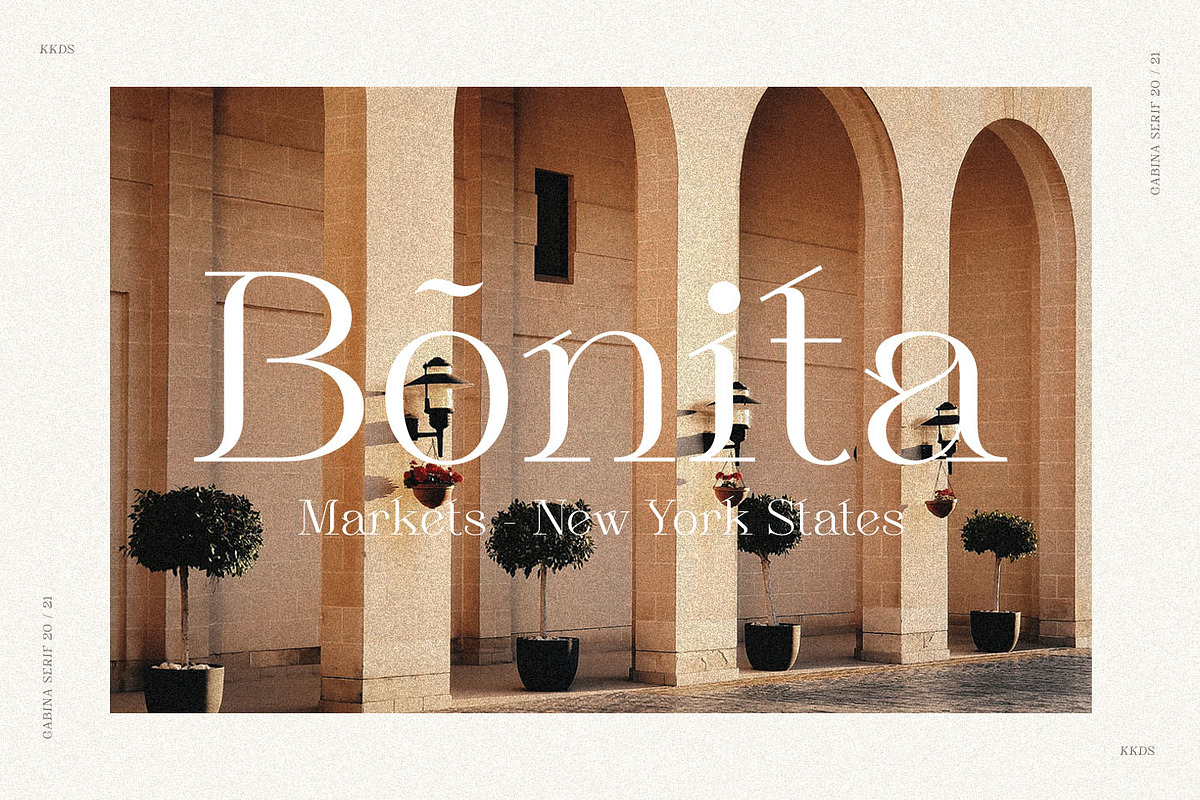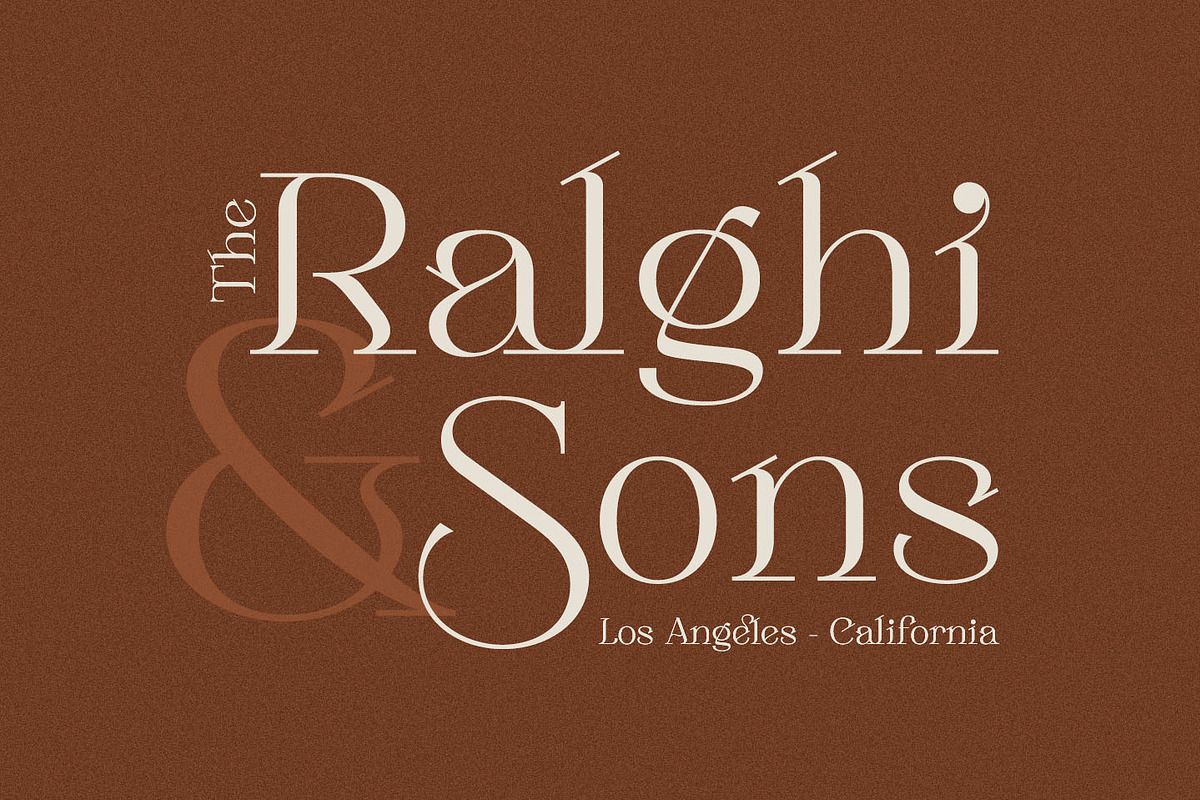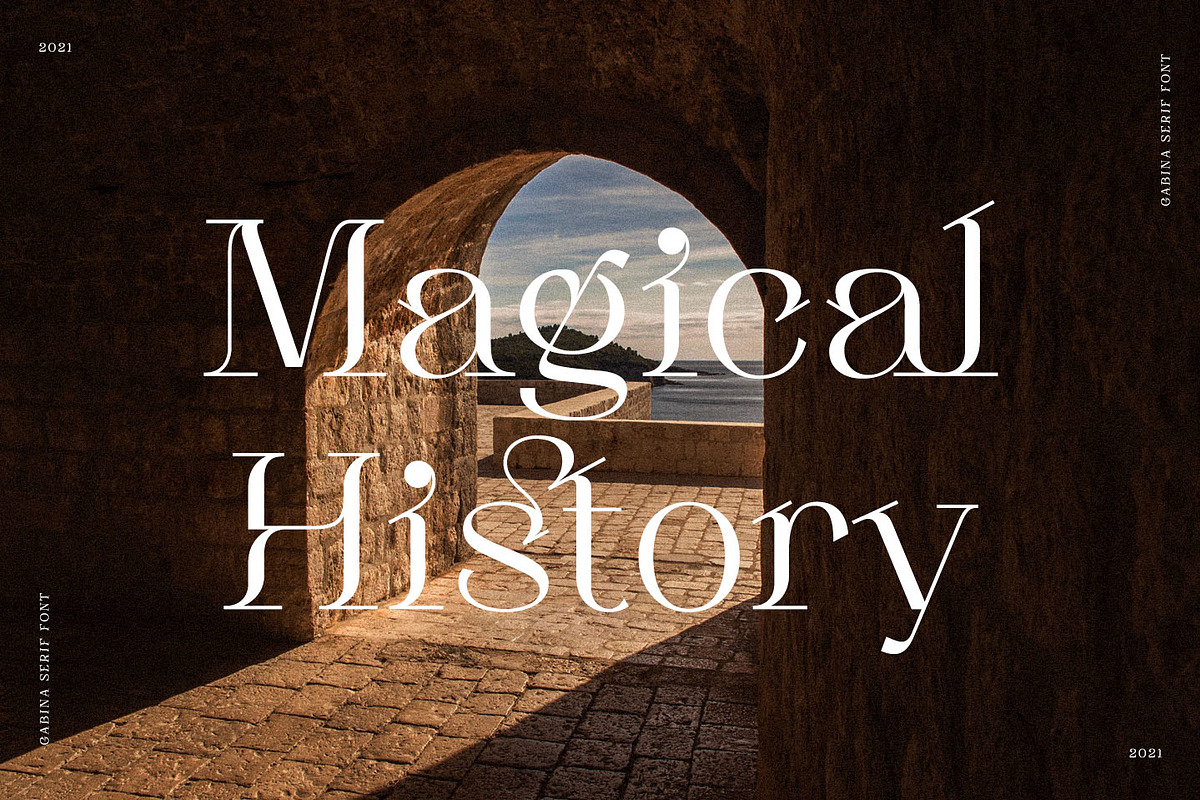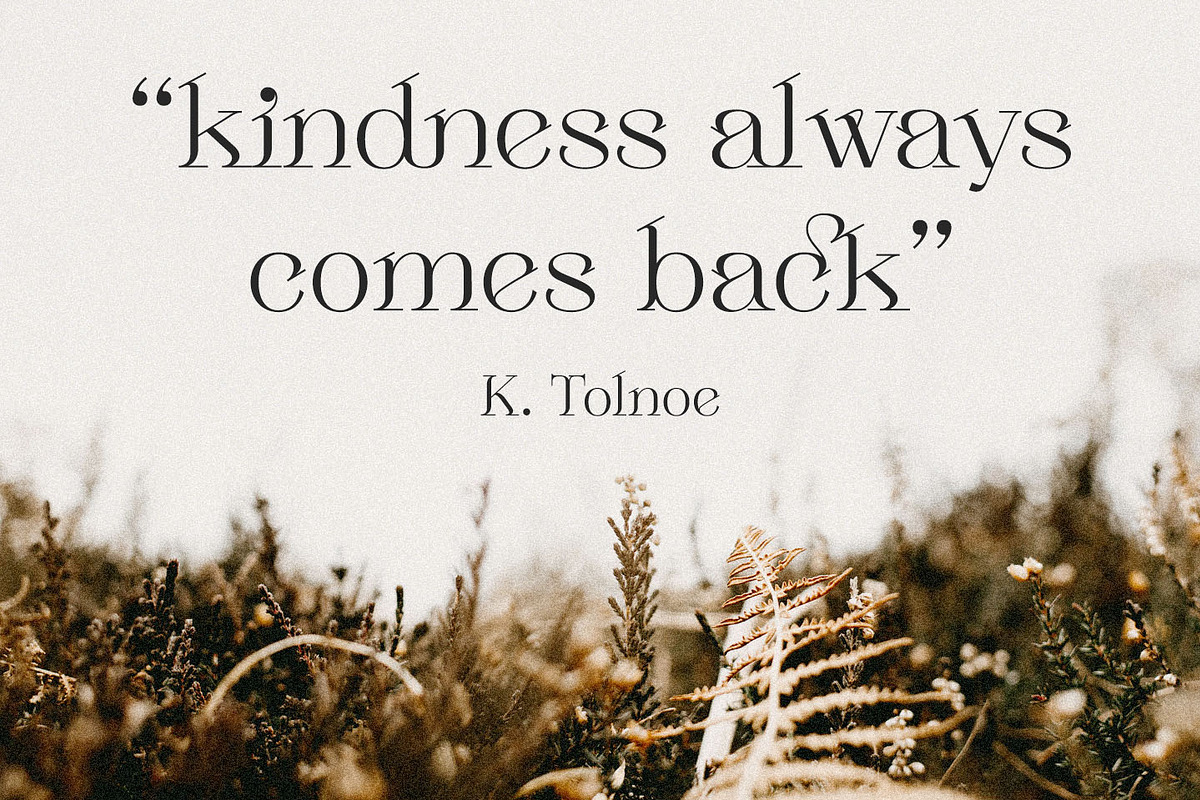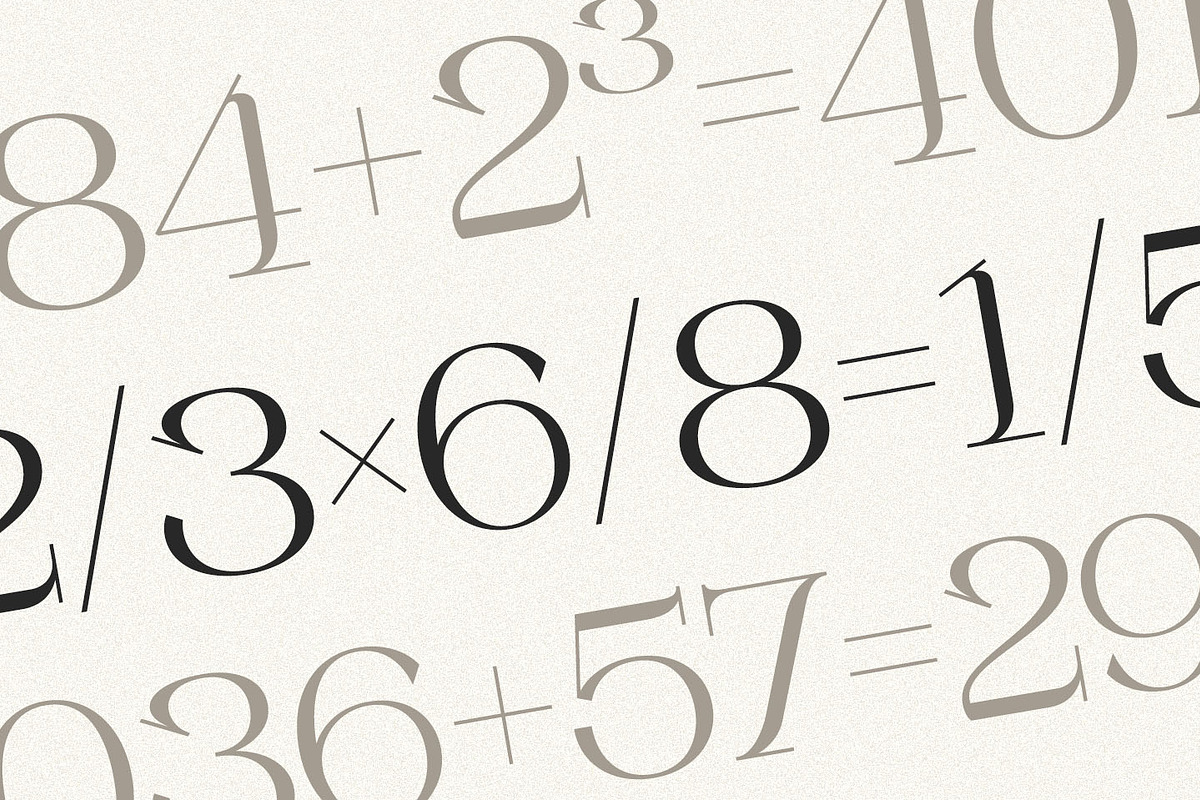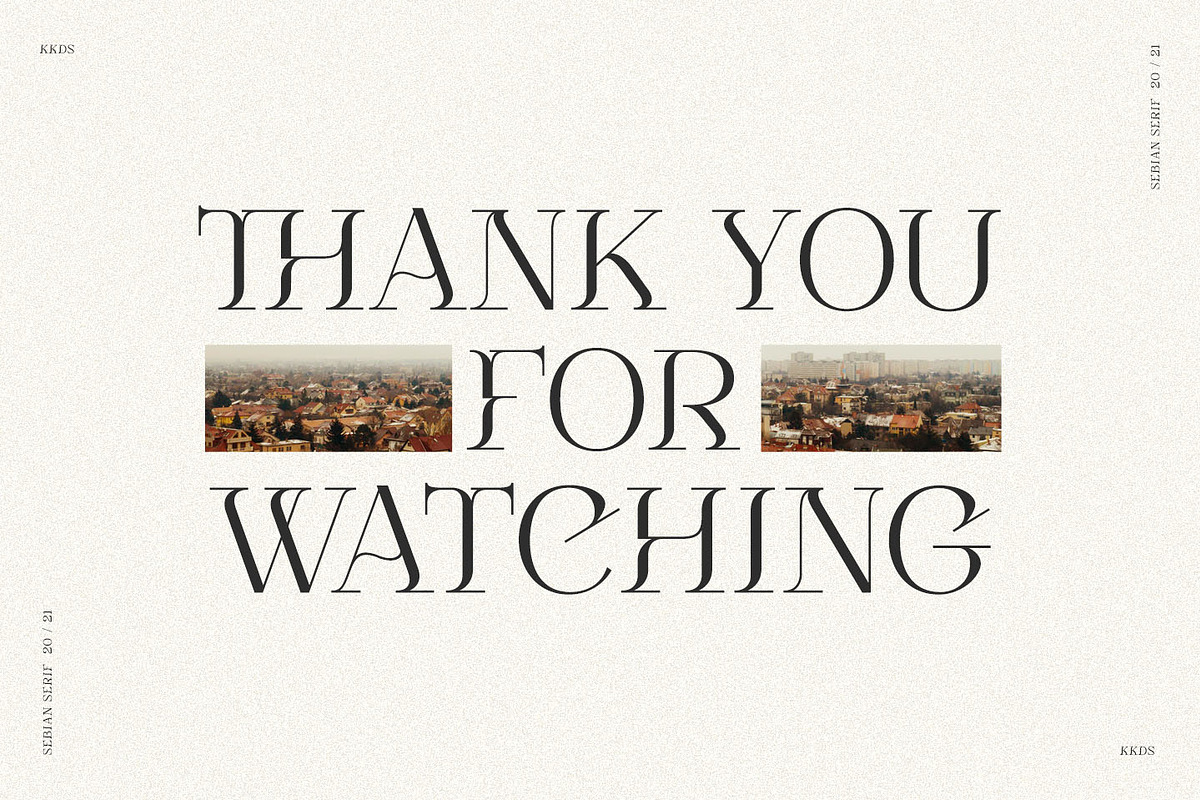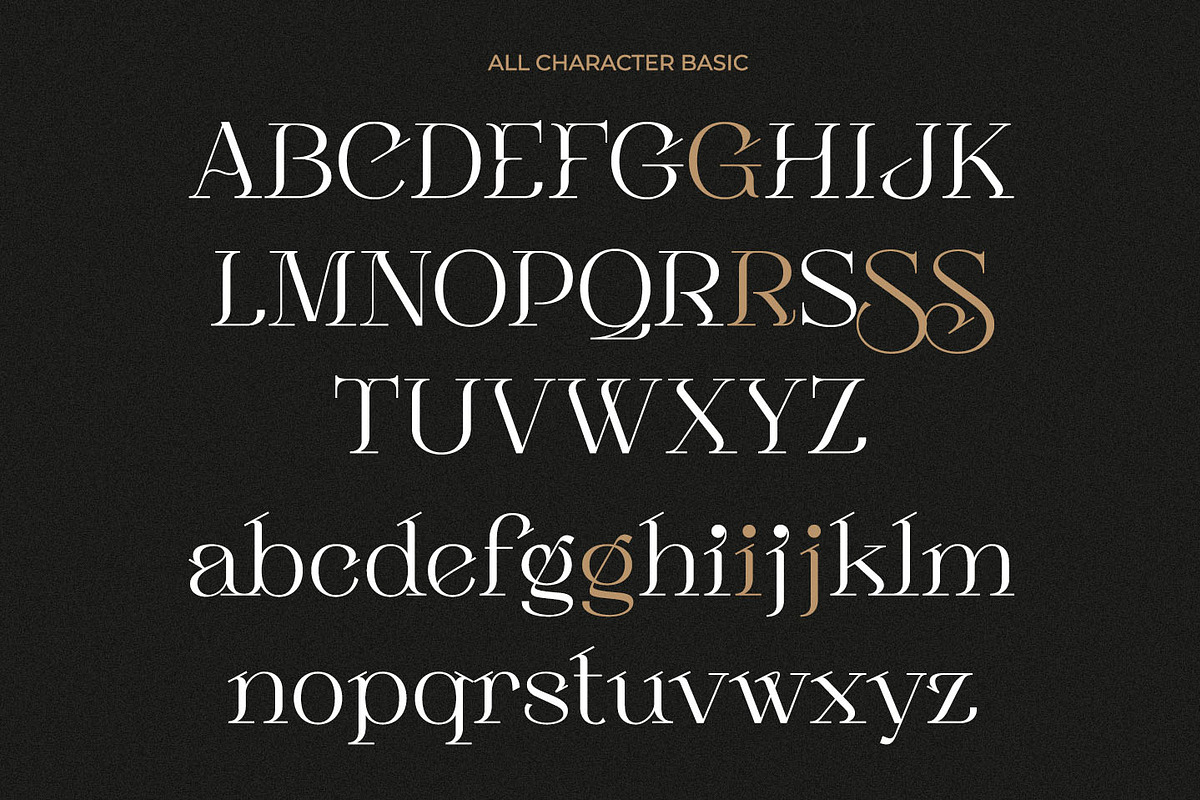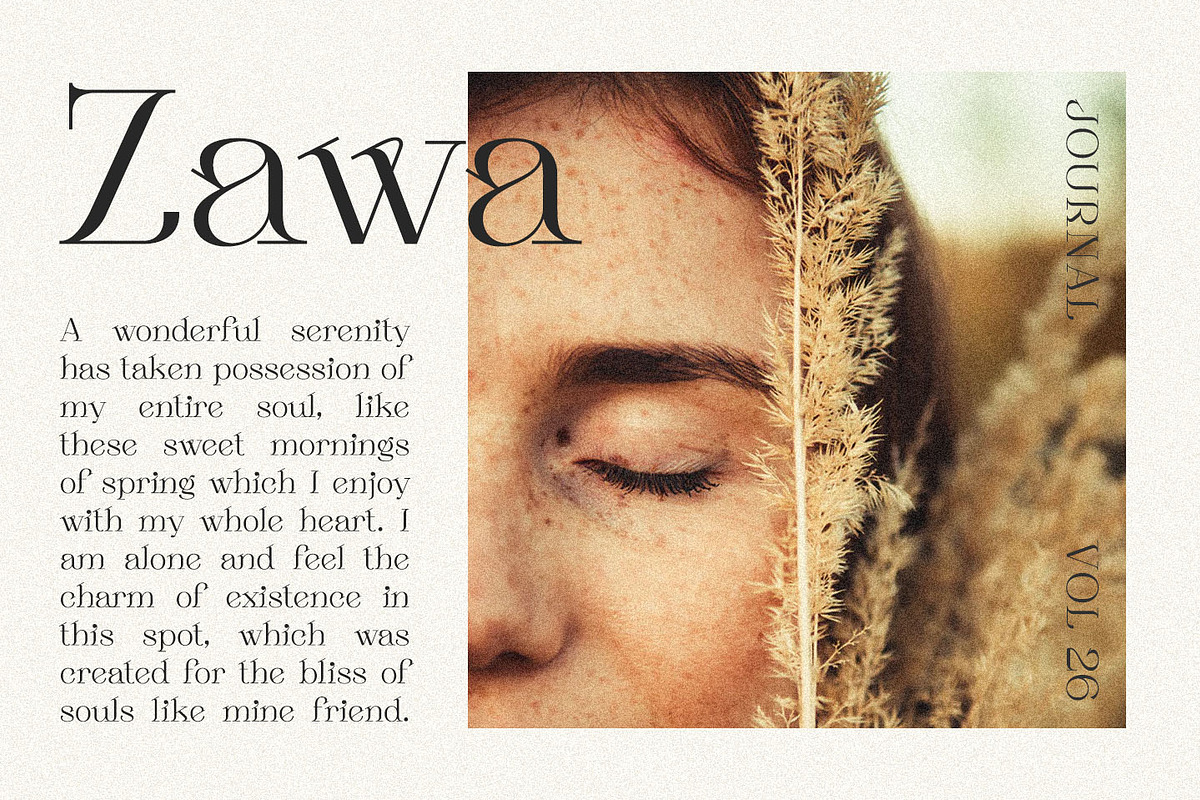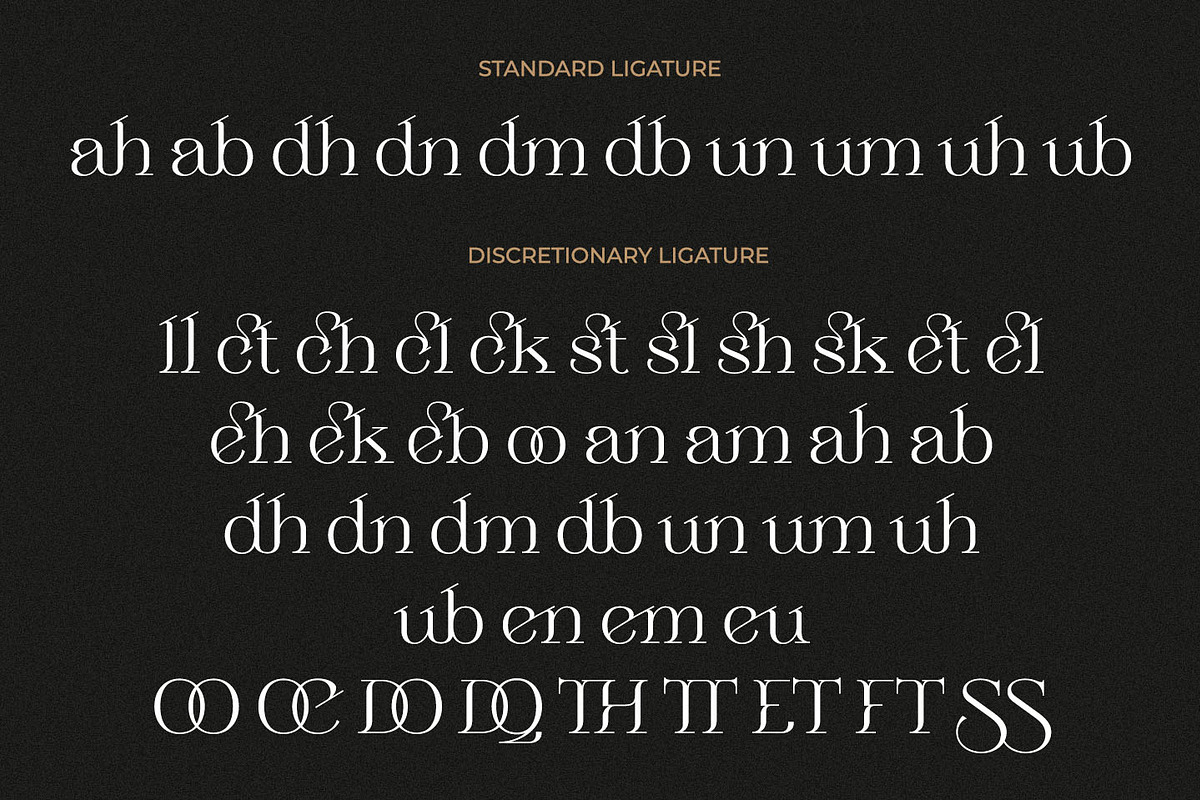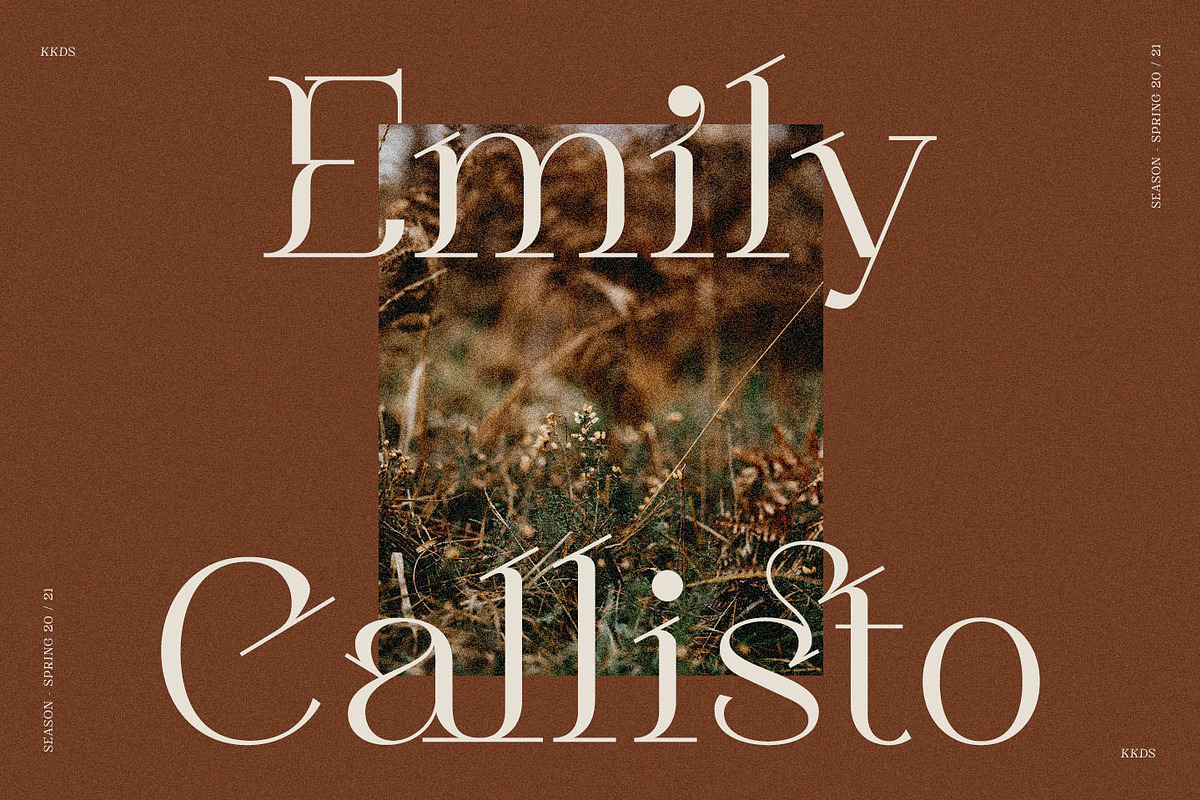
SALE Sebian - Elegant Serif Font
Sebian is a modern and elegant serif font. Sebian is well-suited for advertising, branding, logotypes, packaging, titles, headlines and editorial design. This font comes in two styles, Regular and Italic Version.